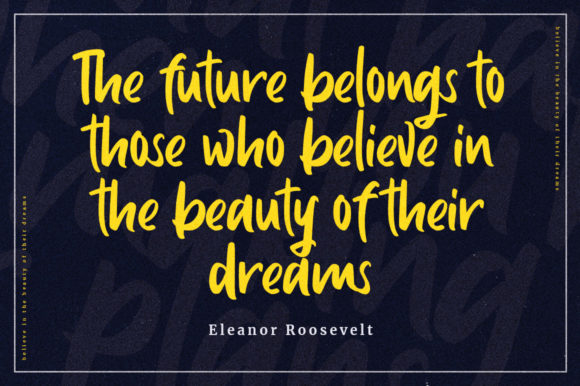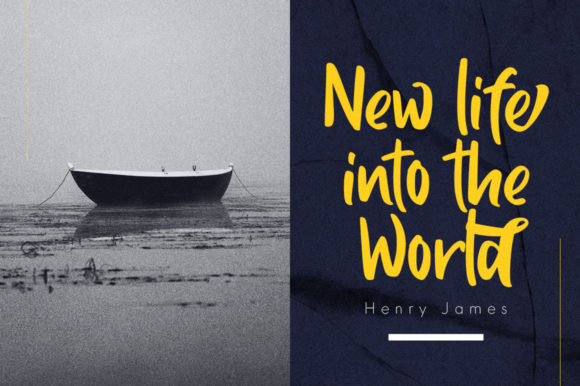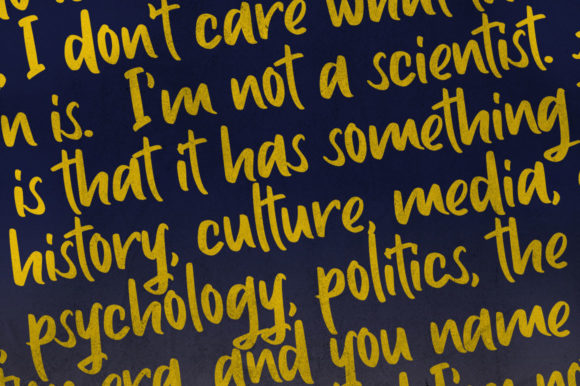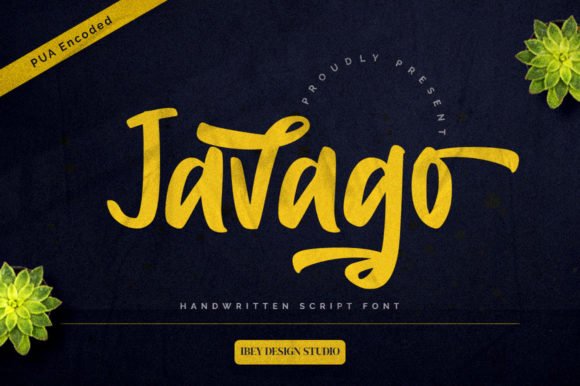
Introduction to Javago Script Font
Javago Script is a cool, friendly and trendy handwritten font.
Not too thin and not too thick, balanced and varied, this was designed to enhance the beauty of your projects Javago Script is PUA encoded which means you can access all of the beautiful glyphs and swashes with ease.
Javago Script Font offers exceptional quality and versatility, making it a valuable addition to your design toolkit. Whether you’re creating for personal projects or commercial use, Javago Script Font delivers professional results.